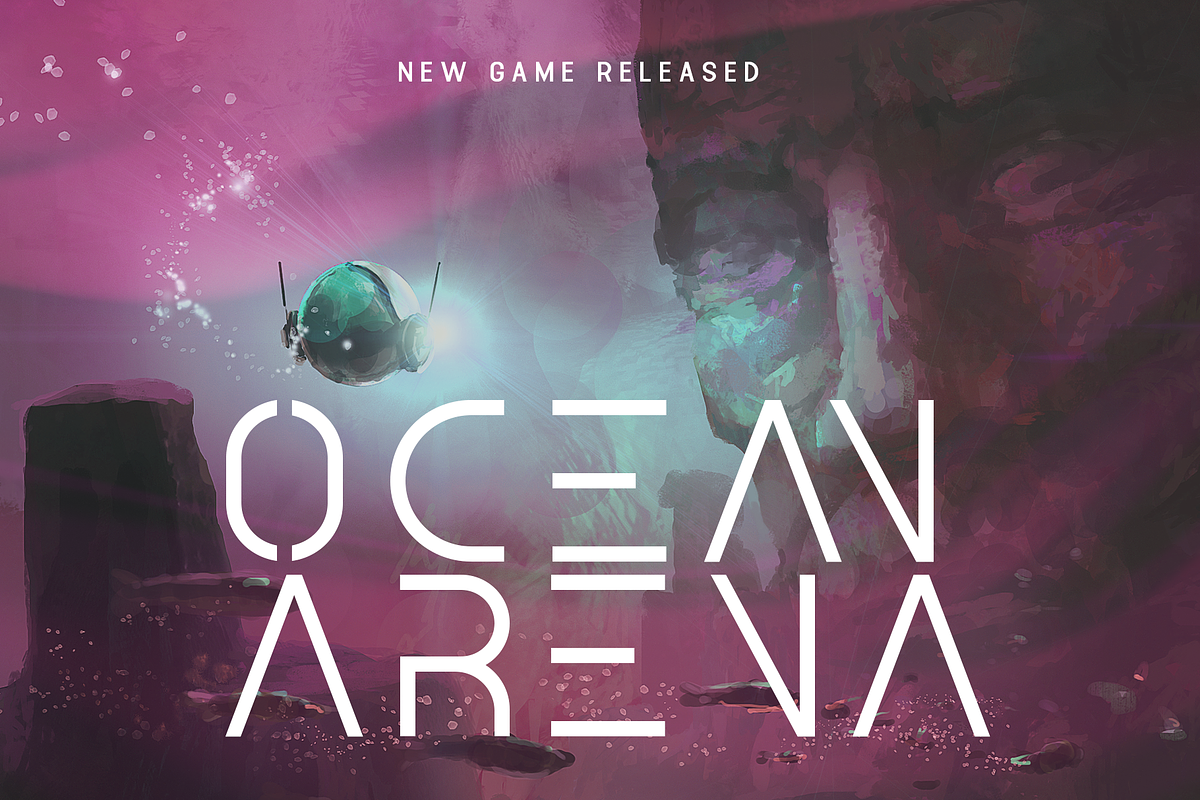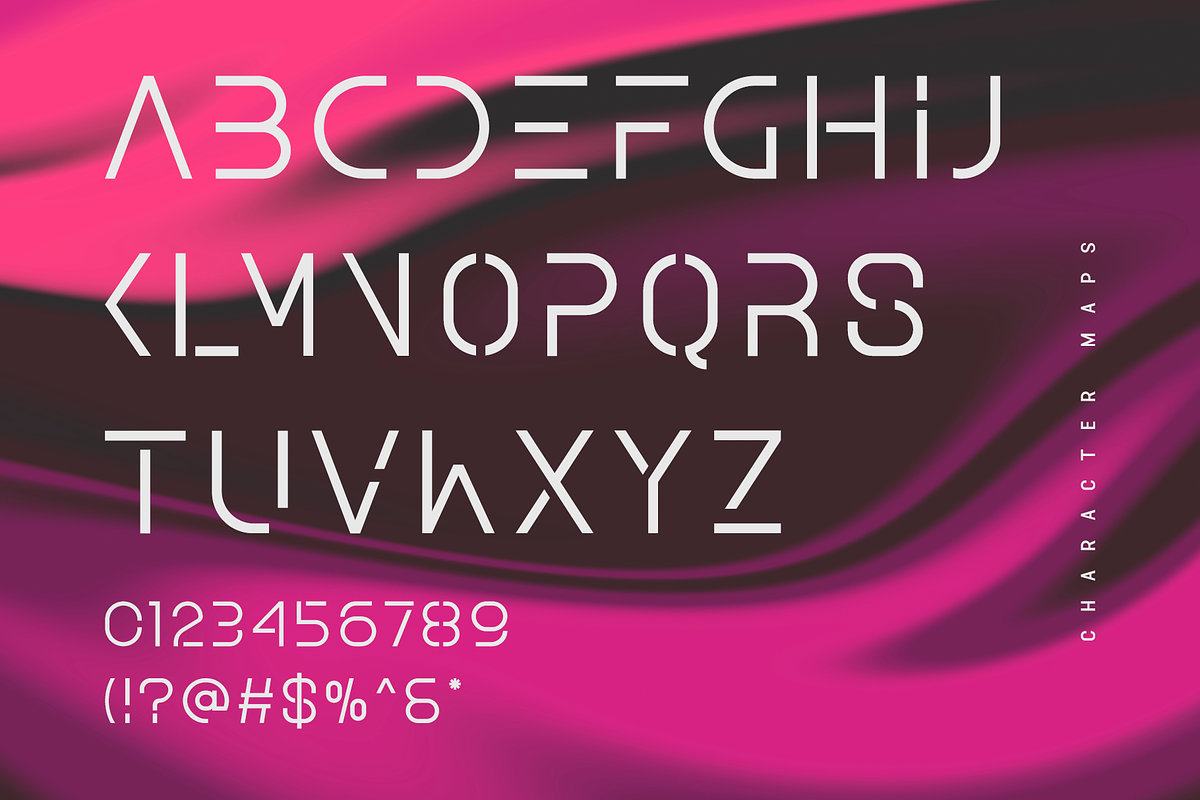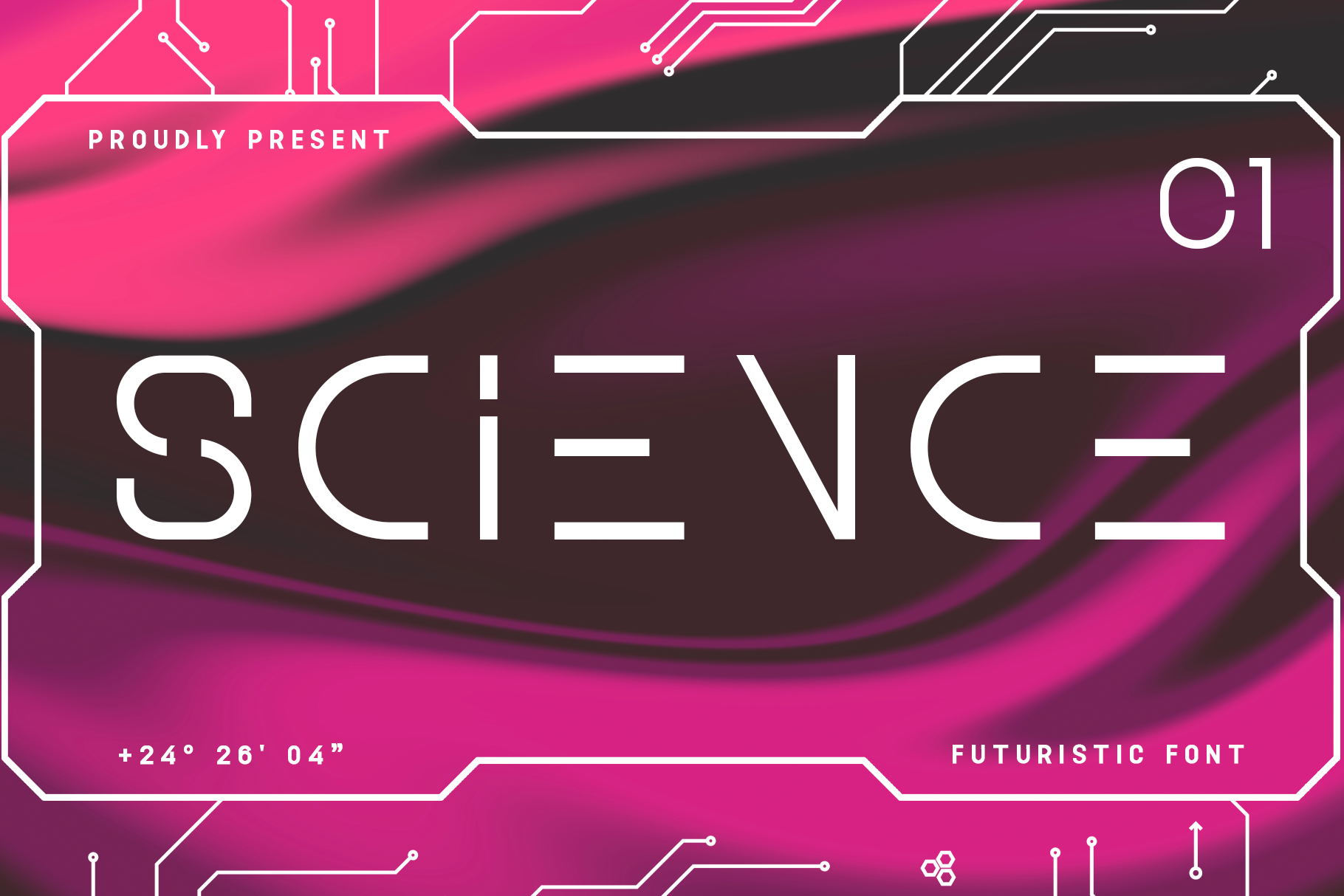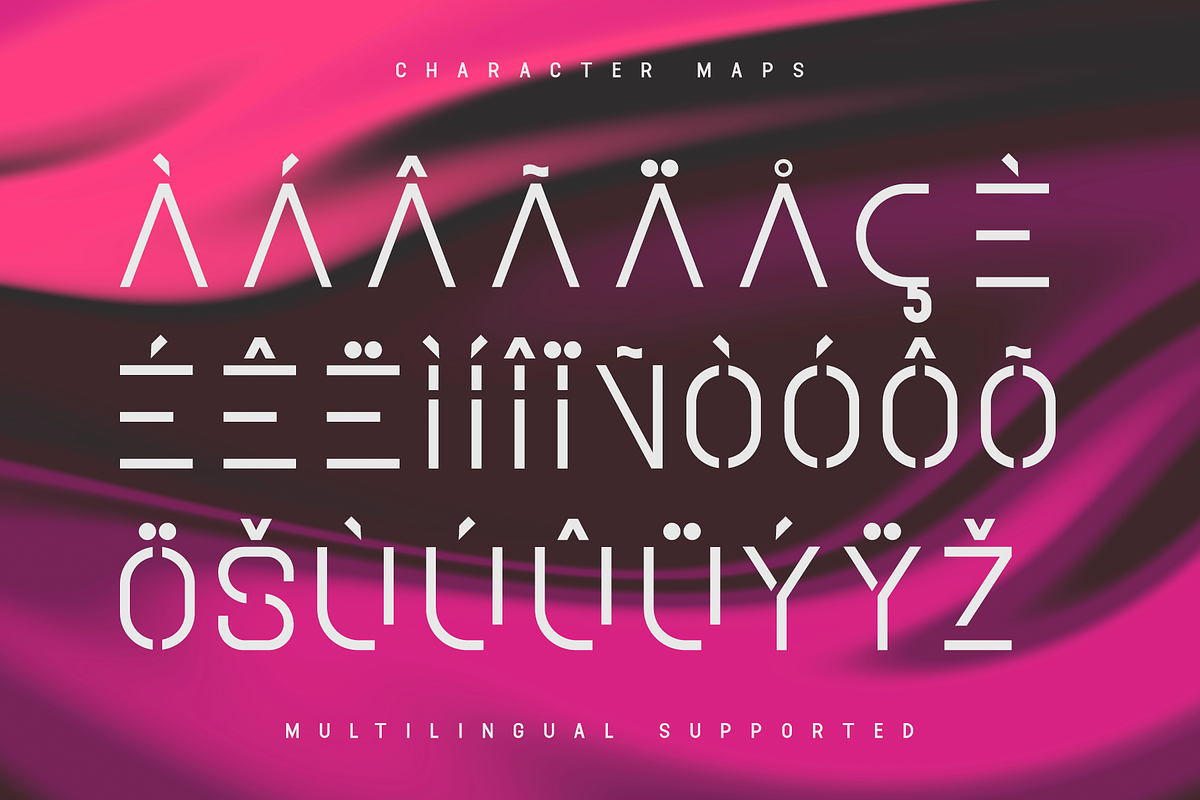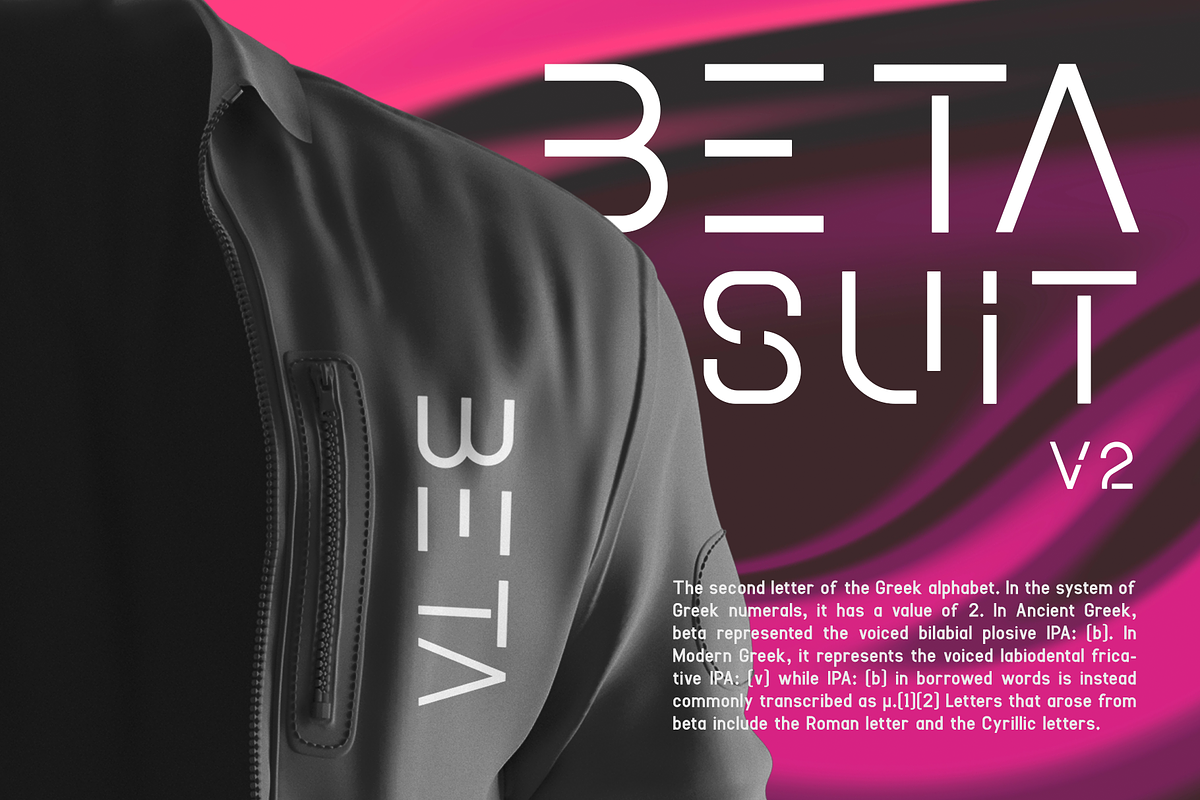
Science - A Futuristic Font
Science is a cutting-edge futuristic font designed to bring a sense of innovation and modernity to your projects. With its sleek lines and geometric precision, Science is perfect for tech-themed designs, sci-fi movie posters, digital interfaces, and branding for forward-thinking companies. This font encapsulates the essence of the future, offering a unique blend of style and functionality.
Crafted with meticulous attention to detail, Science features clean and crisp letterforms that ensure readability while maintaining a futuristic aesthetic. Its versatile design allows it to be used in various applications, from eye-catching headlines to sophisticated logos and compelling advertisements. The font's distinct appearance makes it ideal for projects that demand a contemporary and avant-garde touch.
Step into the future with Science, a font that embodies the spirit of technological advancement and creative exploration. Its innovative design and versatility make it a valuable asset for designers looking to create impactful and futuristic work. Elevate your designs with Science and make a bold statement in the world of typography.